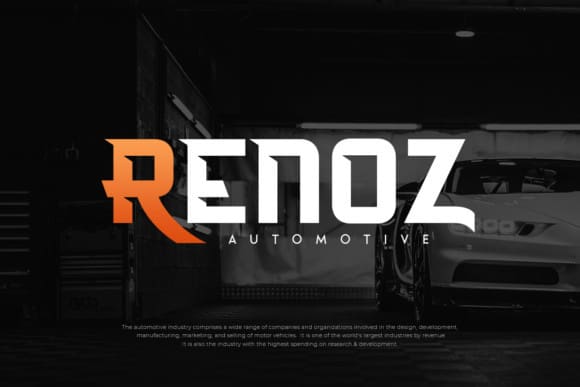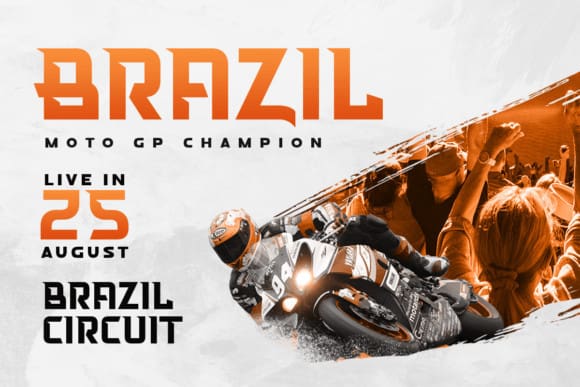
Holigan Font
Holigan Font is a bold and assertive sans serif font. No matter the topic, this font will be an incredible asset to your fonts’ library, as it has the potential to elevate any creation.